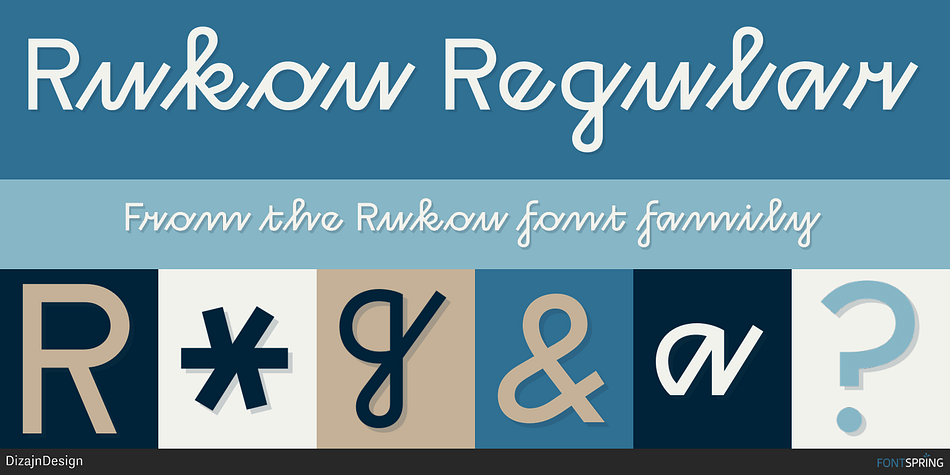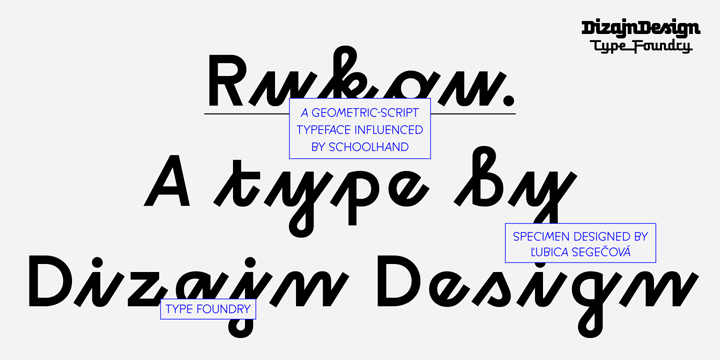
Rukou Regular
Rukou is a retro and script font family. This typeface has six styles and was published by DizajnDesign.
Rukou originated as a logo for a fashion designer.
Rukou originated as a logo for a fashion designer. The idea was to make a fusion of a geometric typeface with the flavour of childish features. Rukou was inspired by school hand-writing models, but adds very specific and interesting features to it.
Rather than focusing on readability, the primary goal was to have a unique type texture. This is the reason why lowercase is disconnected. The disconnected letters opened the possibility to create the special shapes for individual letters.
The typefaces consist of two different styles inside one font. You can choose to set your titles in uppercase, or lowercase/titlecase. As each style has a slightly different texture, there is the opportunity to combine them in interesting ways. The uppercase can even be set in small paragraphs.